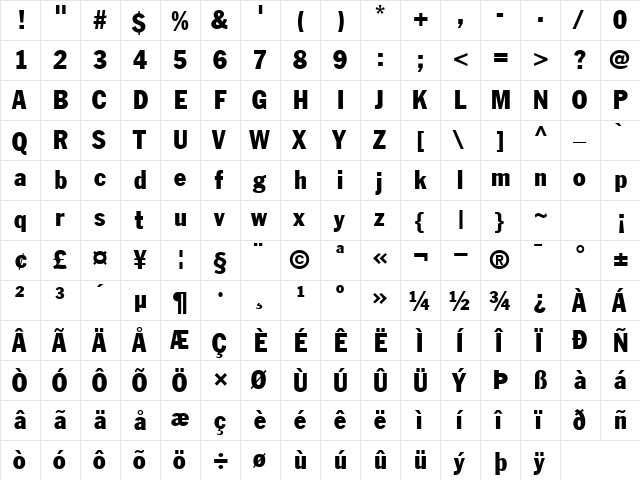
LibraryGothicHeavy Regular Font Preview
LibraryGothicHeavy Regular
Design Context for LibraryGothicHeavy Typeface
LibraryGothicHeavy has the quiet confidence of well-executed sans-serif typography: versatile, unobtrusive, and dependable at any size.
Font Pairing: Works well alongside a characterful serif or display font that can carry the expressive load while LibraryGothicHeavy handles the functional copy.
Pro Tip: Use LibraryGothicHeavy for UI labels, navigation, and short-form body copy where clean legibility is the priority.